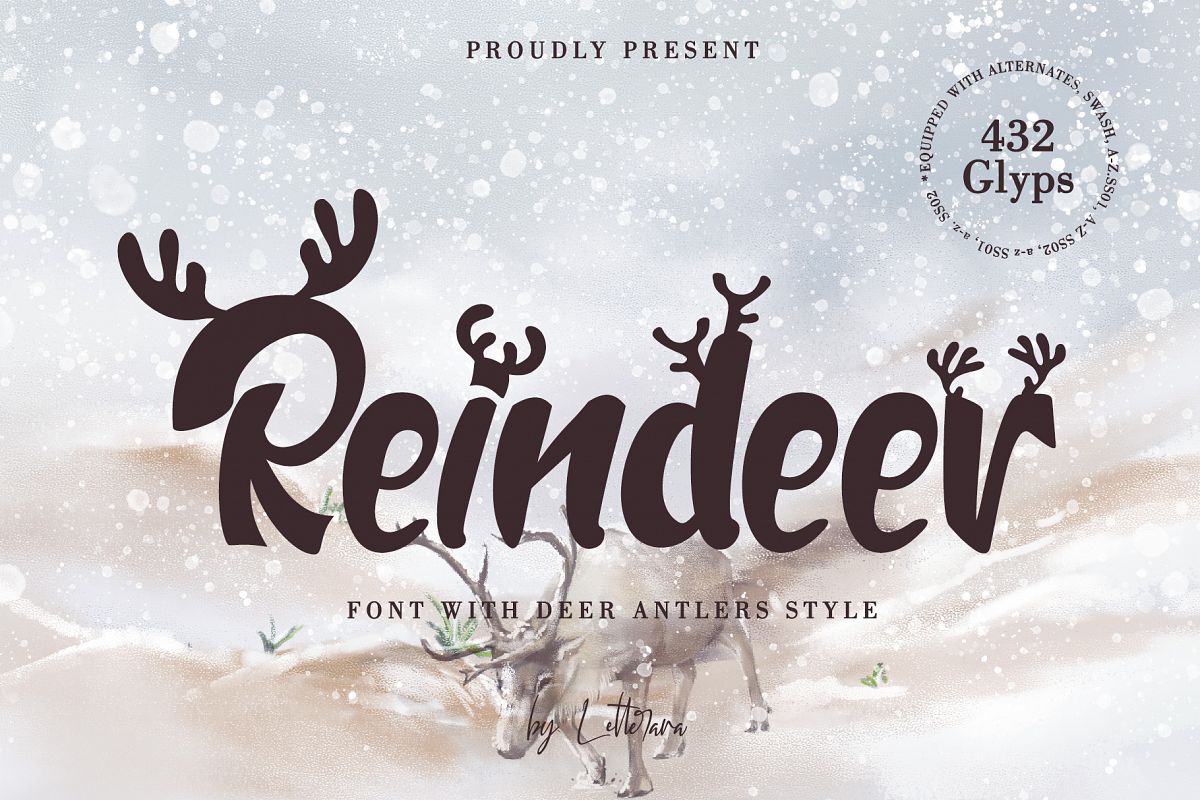
Reindeer is a bold script font with many features, make great
your Christmas and winter designs. Get inspired by his deer antler style!
• Standard Uppercase and Lowercase Alphabet
• ALTERNATES, SWASH, SS01 SS02 (MANY GLYPHS)
• Multilingual support AÀÁÂÃÄÅCÇDEÈÉÊËIÌÍÎÏNÑOØÒÓÔÕÖUÙÜÚÛYÝŸ?Ÿ